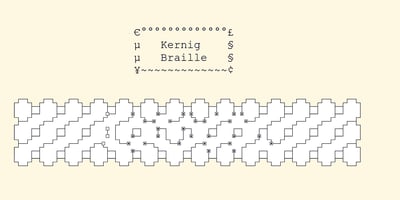
Kernig Braille Font Family was designed by Michel Kern and published by Echopraxium. Kernig Braille contains 1 styles and family package options. This font is the younger sister of HexBraille with which it may be combined to create new patterns. This also explains why their introductory text are similar.IntroductionThe purpose of this monospace font is to display braille in an original and “steganographic” way. The Kernig prefix means “Robust” in German, this is because of the crank shapes . The core of the glyph design is a flat hexagon which can be read as 3 rows of 2 dots (i.e. regular braille glyph grid). Even if within a glyph, braille dots (“square dots” indeed) are placed on the vertices of a flat hexagon, the difference with HexBraille is that edges connecting vertices are not straight lines but “crank shapes” instead. This can be summarized by saying that the whole glyph is a Hexcrank (a flat hexagon where vertice pairs are connected by a crank shape)NB: The initial design is illustrated by glyphs ‘ç’ (no dot) and ‘û’ (6 dots) as shown by poster 6.A. “Kernig Lattice”In KernigBraille, glyphs are connected to each other, thus for each Hexcrank glyph there are 6 connections: 2 on left/right and 4 on top/bottom. In the final design some cranks were removed for esthetical reason (i.e. leave empty space for allowing patterns diversity). In summary, a text using this font won’t display a honeycomb but a lattice instead.NB: Please notice that in order to obtain the lattice without vertical gaps, you must set the interline to 0.The lattice is made from 3 kind of shapes:a.1. Hexcranka.2. Squarea.3. Irregular cross (mostly unclosed)The design favored squares over crosses. The whole slightly resembling a PCB.B. Text FramesIt’s possible to frame the text with 4 sets of frame glyphs (as illustrated by poster 2)b.1. Kernig { € ° £ µ § ¥ ~ ¢ }b.2. Rectangular-High { è é ê ï î à â ä }b.3. Rectangular-Low { Â ù Ä Ê Ë Ô õ ö }b.4. Mixed Kernig+High: a mix of Kernig and Rectangular-High frame glyphsWhen using frame glyphs, it is advised to show Pilcrow (¶) and Non Breaking Space, which are replaced by empty shapes in this font (e.g. in Microsoft Word, use CTRL+8 or use [¶] button in the ribbon).